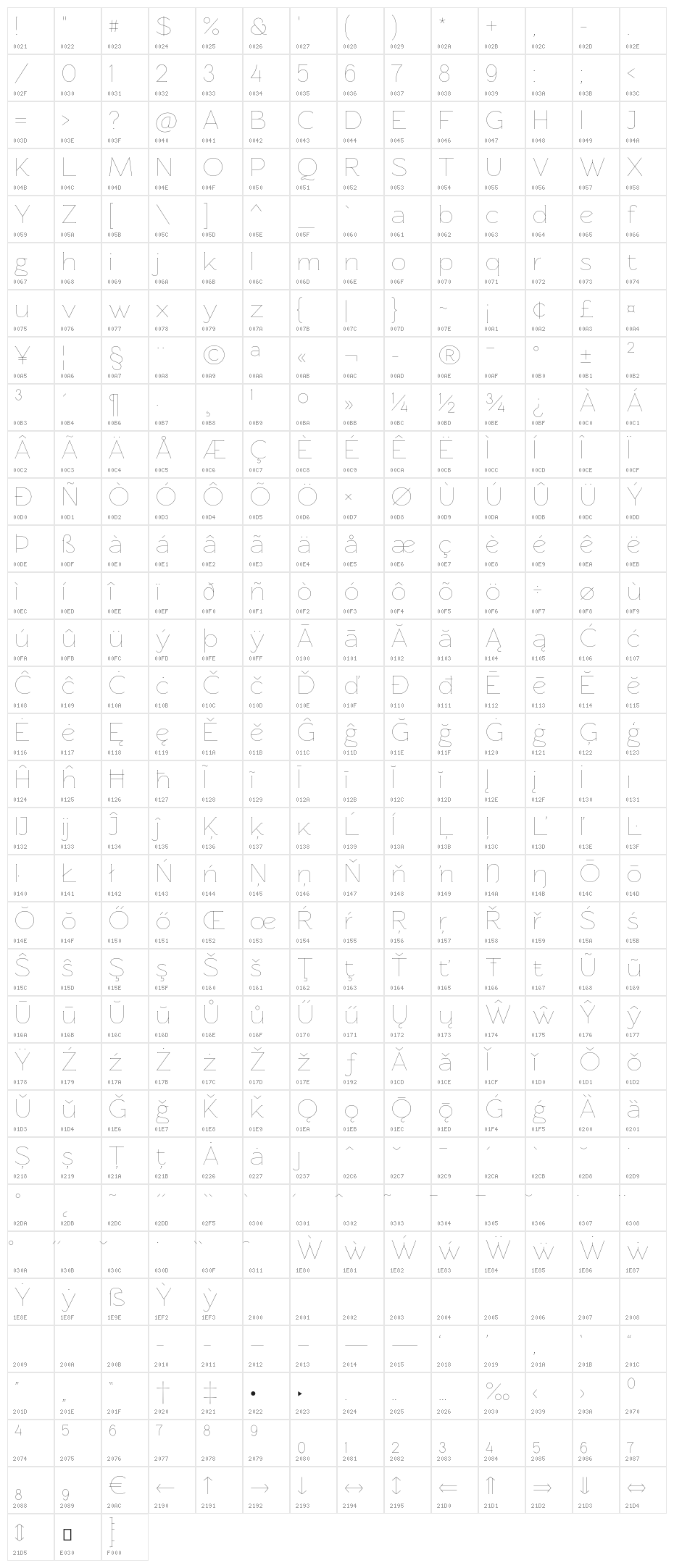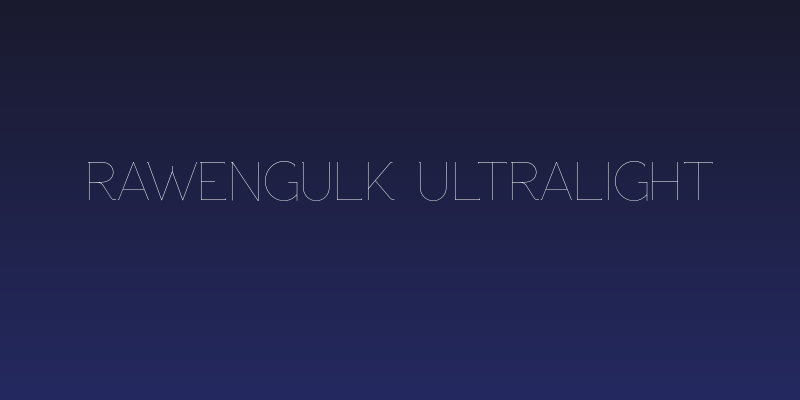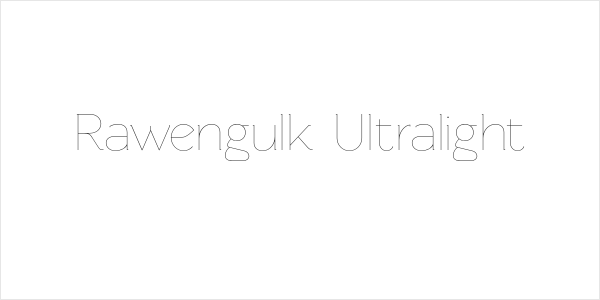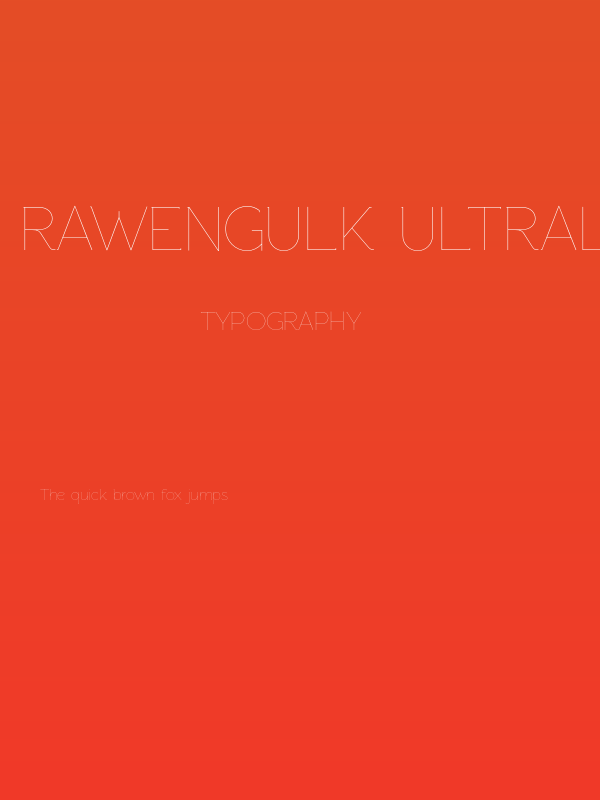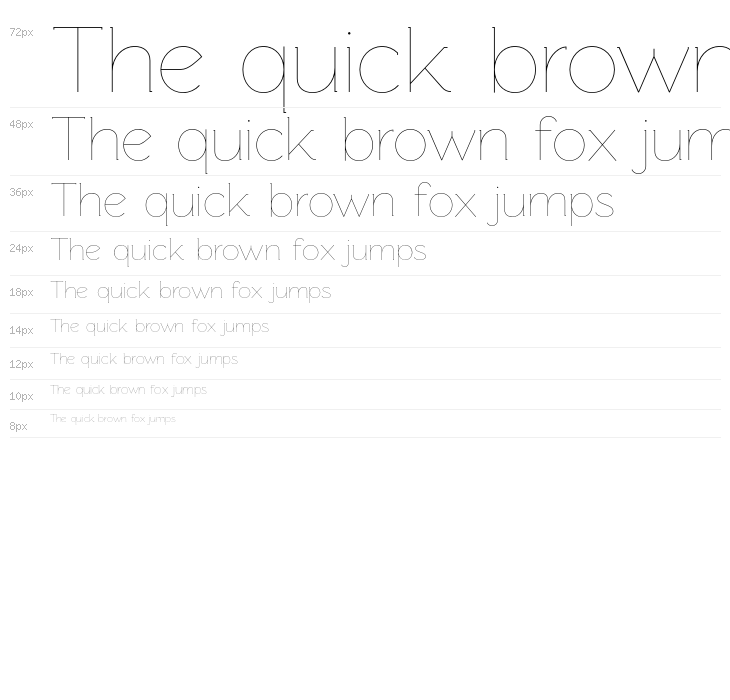
Rawengulk Ultralight Font
Rawengulk Ultralight Description
This font features an ultralight, minimalist design with clean, geometric lines. The characters are evenly spaced, creating a harmonious and airy appearance. The uppercase and lowercase letters maintain a consistent style, with a focus on simplicity and elegance. The numerals and special characters are crafted with the same thin strokes, ensuring uniformity across all elements. This font's modern aesthetic makes it suitable for contemporary design projects, where a sleek and understated look is desired.
| Proposed Projects | Ideal for modern branding, minimalist posters, sleek website headers, and elegant invitations. |